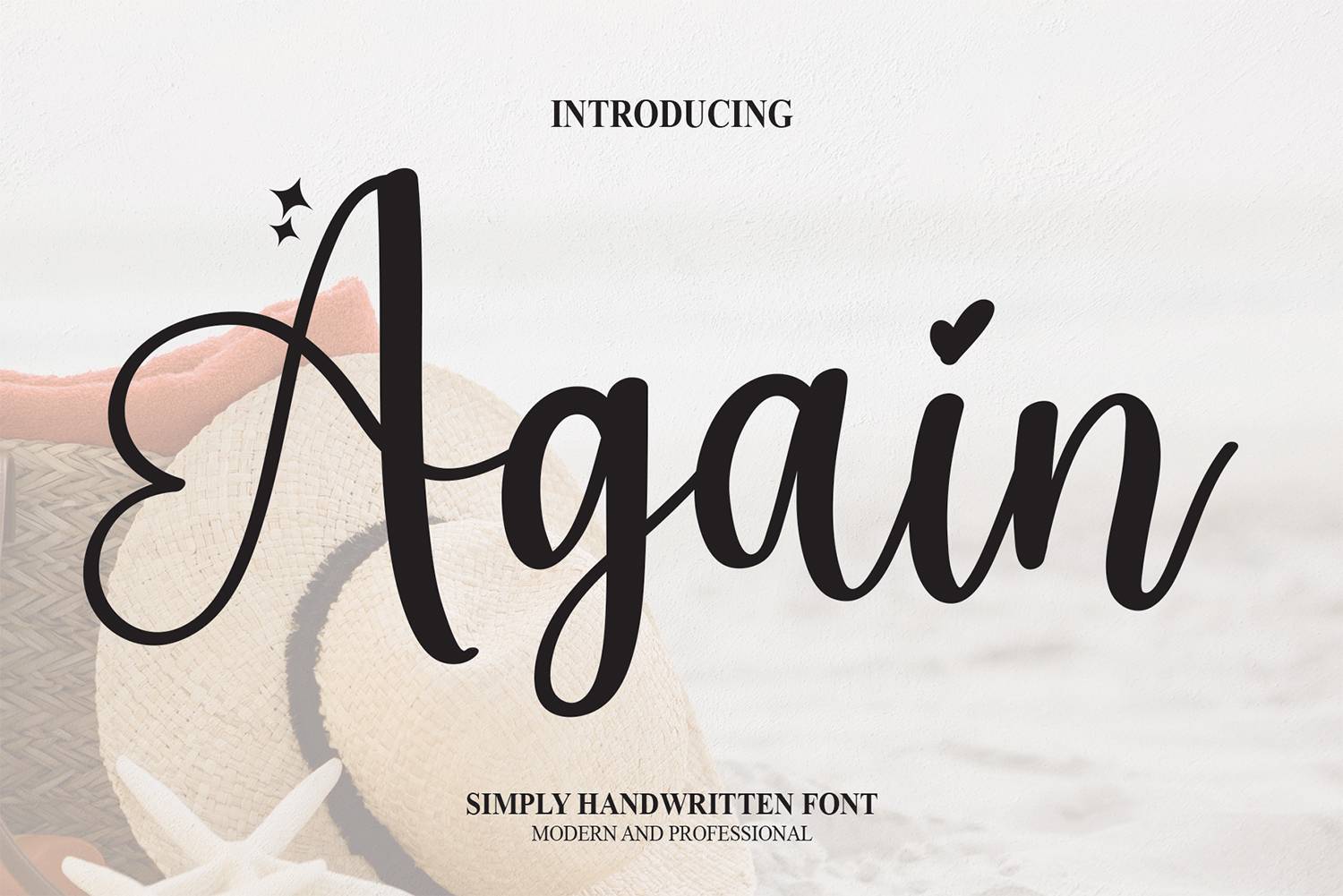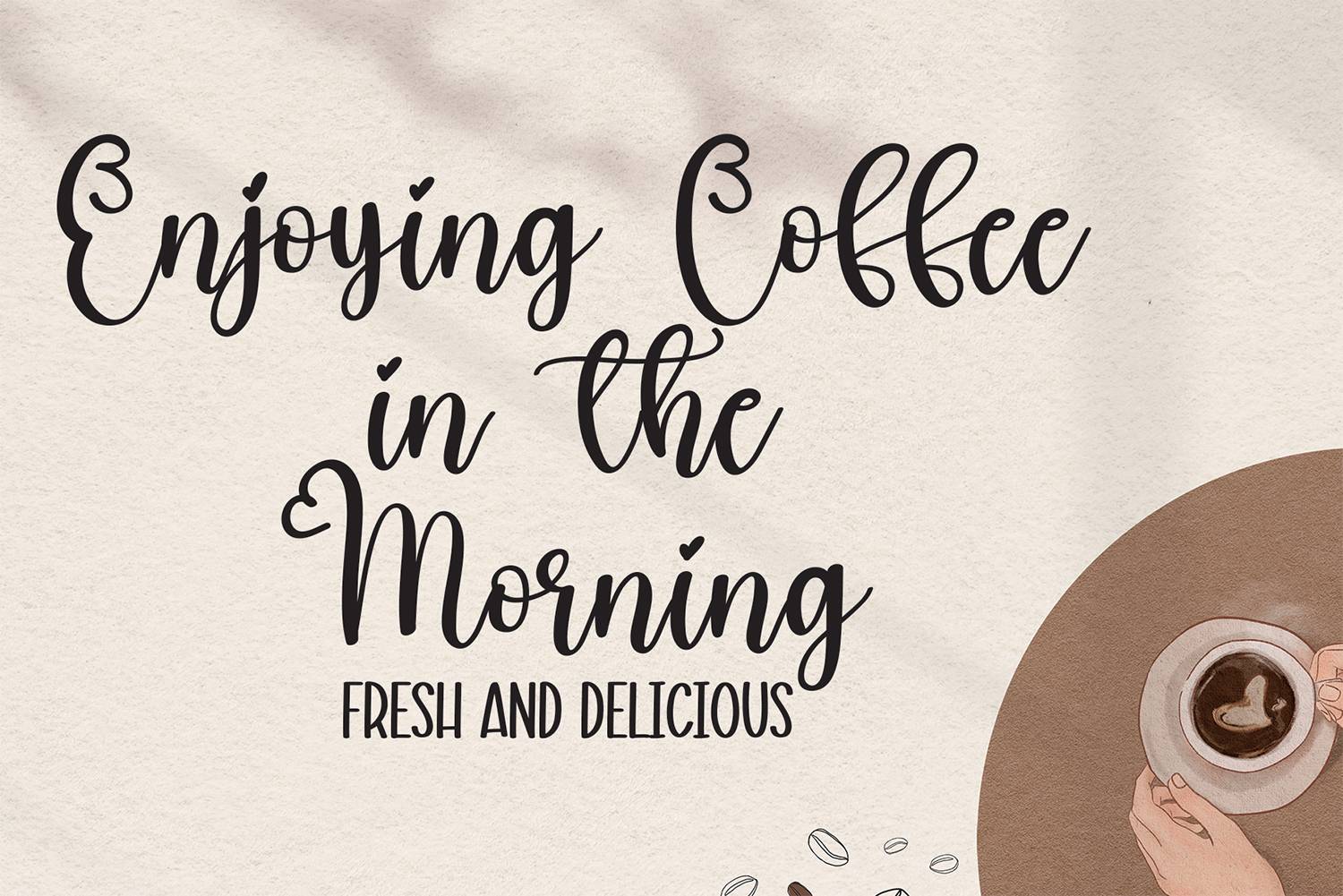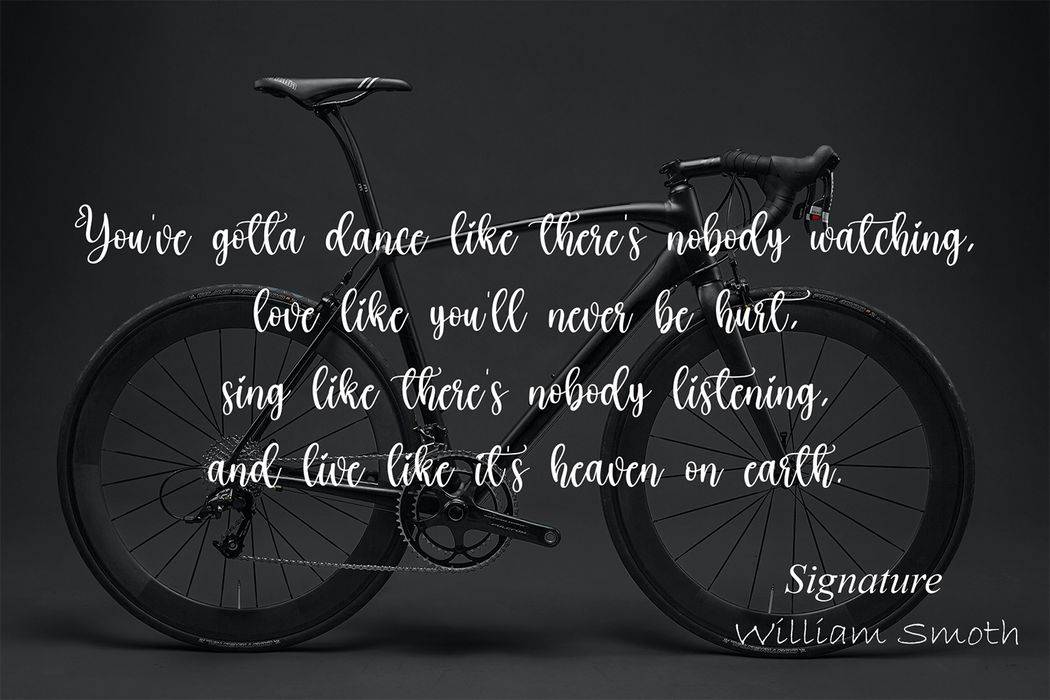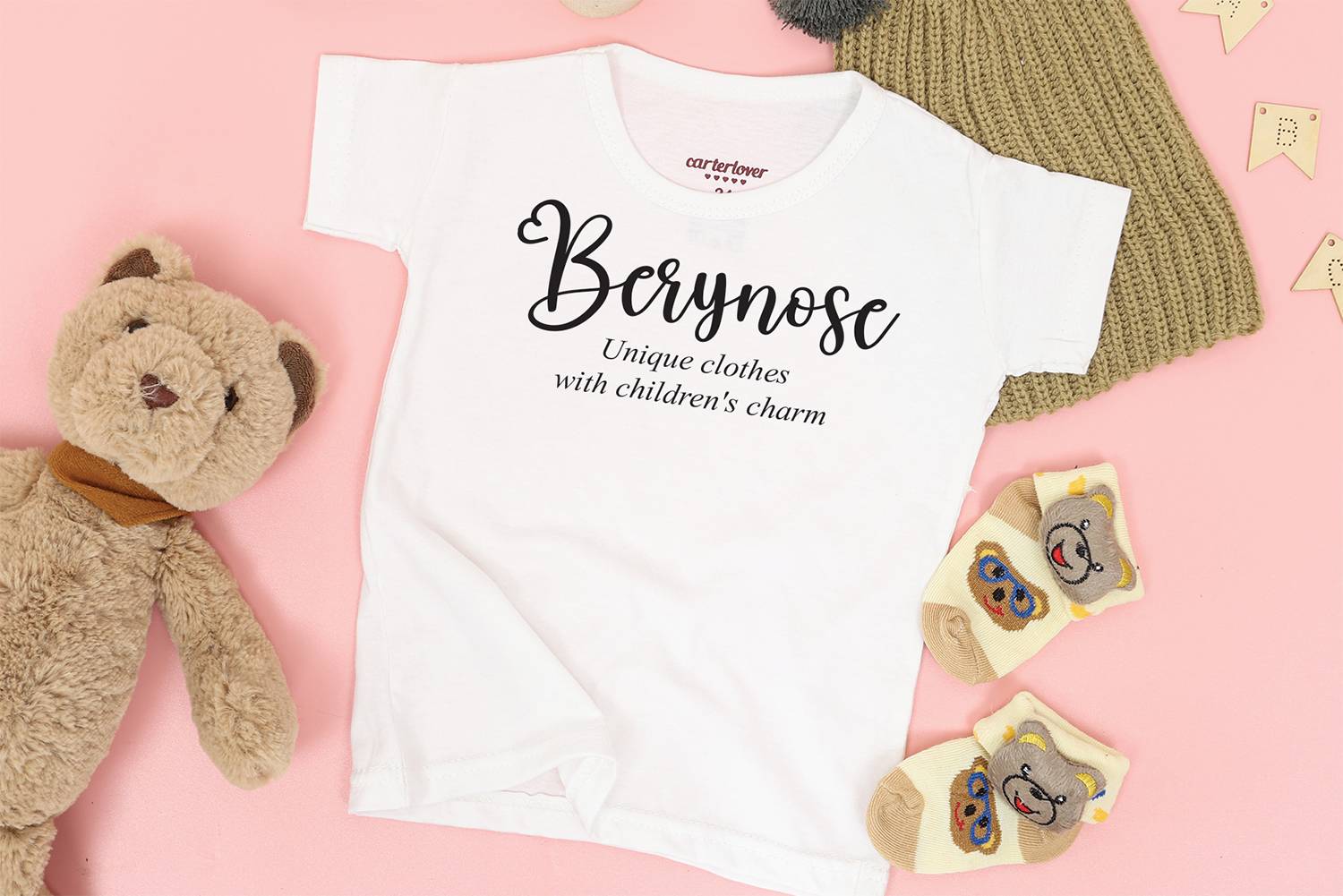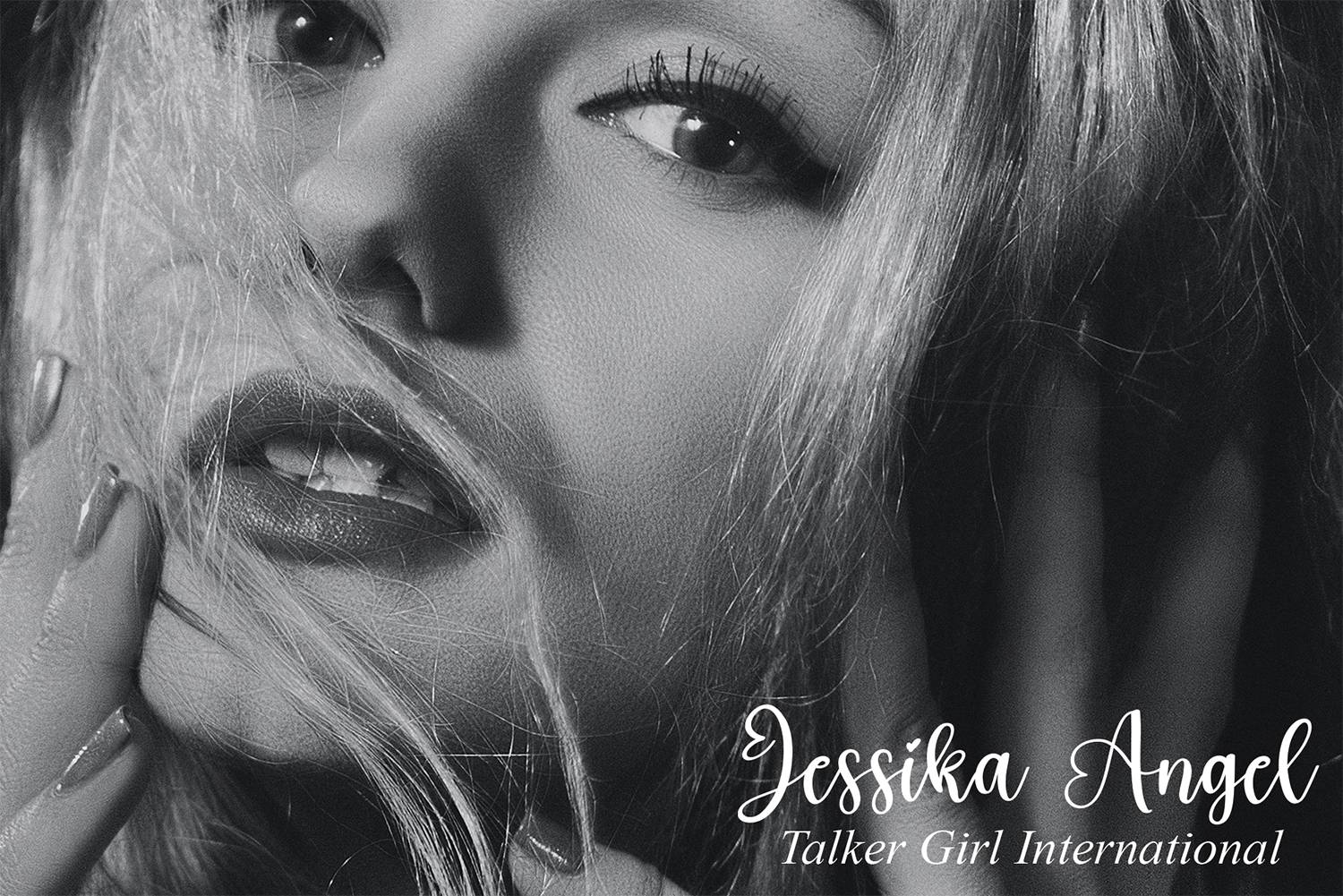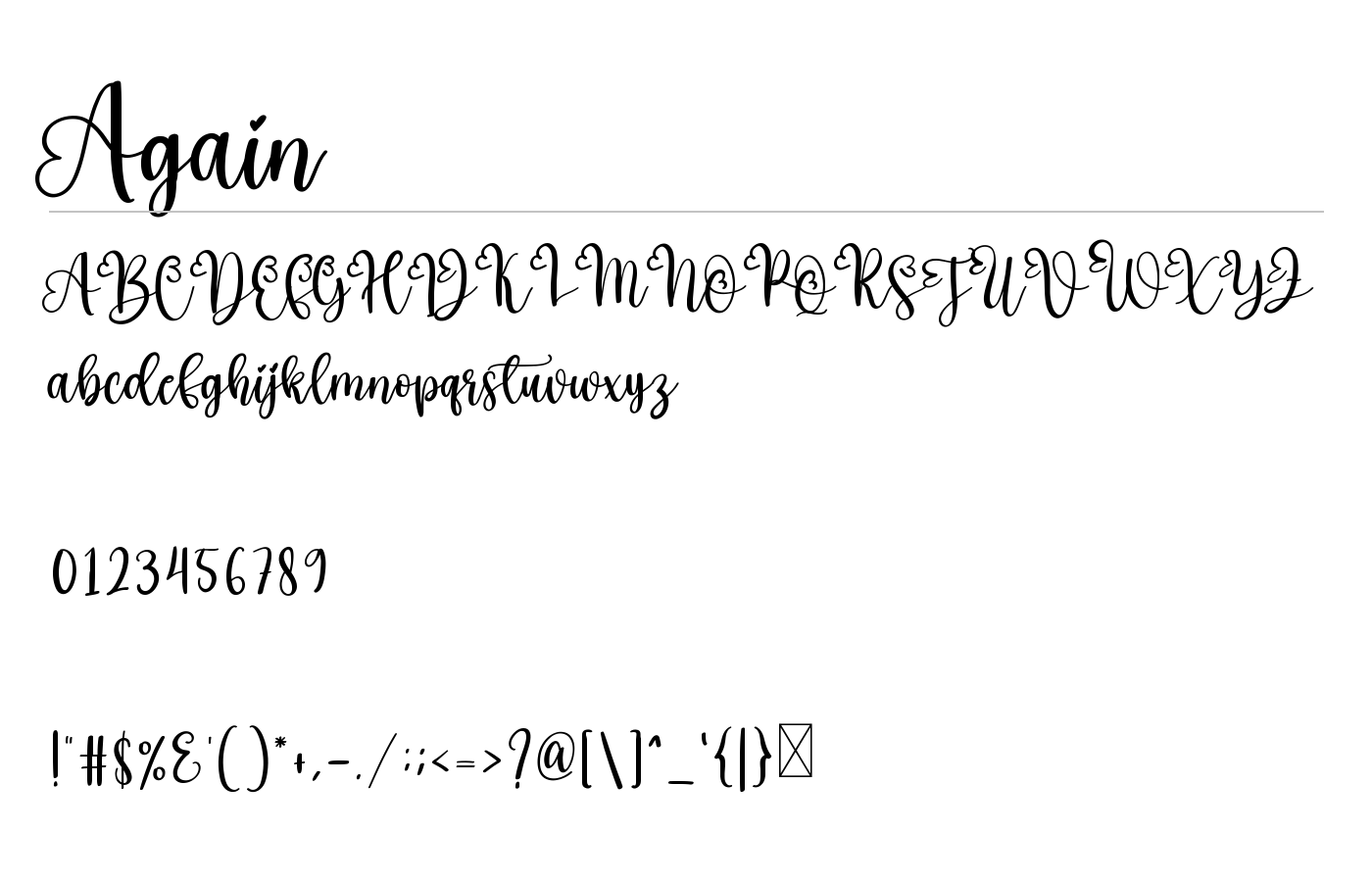
Again Font is a charming script typeface with elegant, flowing letterforms that feature playful loops and heart-shaped accents, creating a whimsical and friendly feel. Its delicate, narrow strokes and moderate contrast make it ideal for stylish invitations, branding, and creative projects that want to convey warmth and personality. This font works beautifully in headlines or logos where a personal, hand-lettered touch is desired.
Again Font
About Again Font